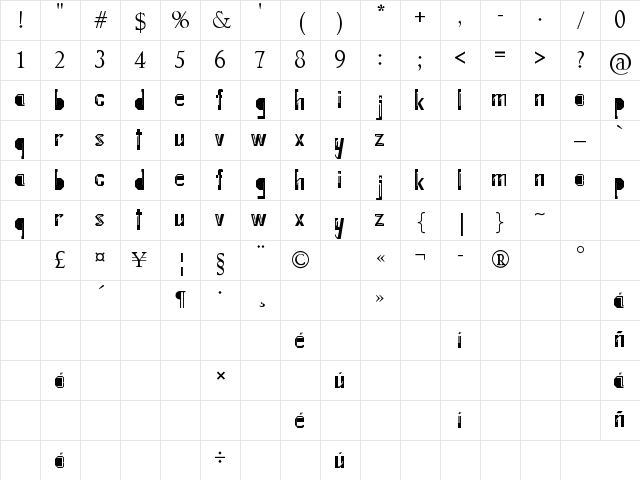
Internal Fratture Regular Free Font
Internal Fratture Regular
Design Context for Internal Fratture
Internal Fratture is a composed and adaptable typeface that performs quietly and consistently across a wide range of design contexts.